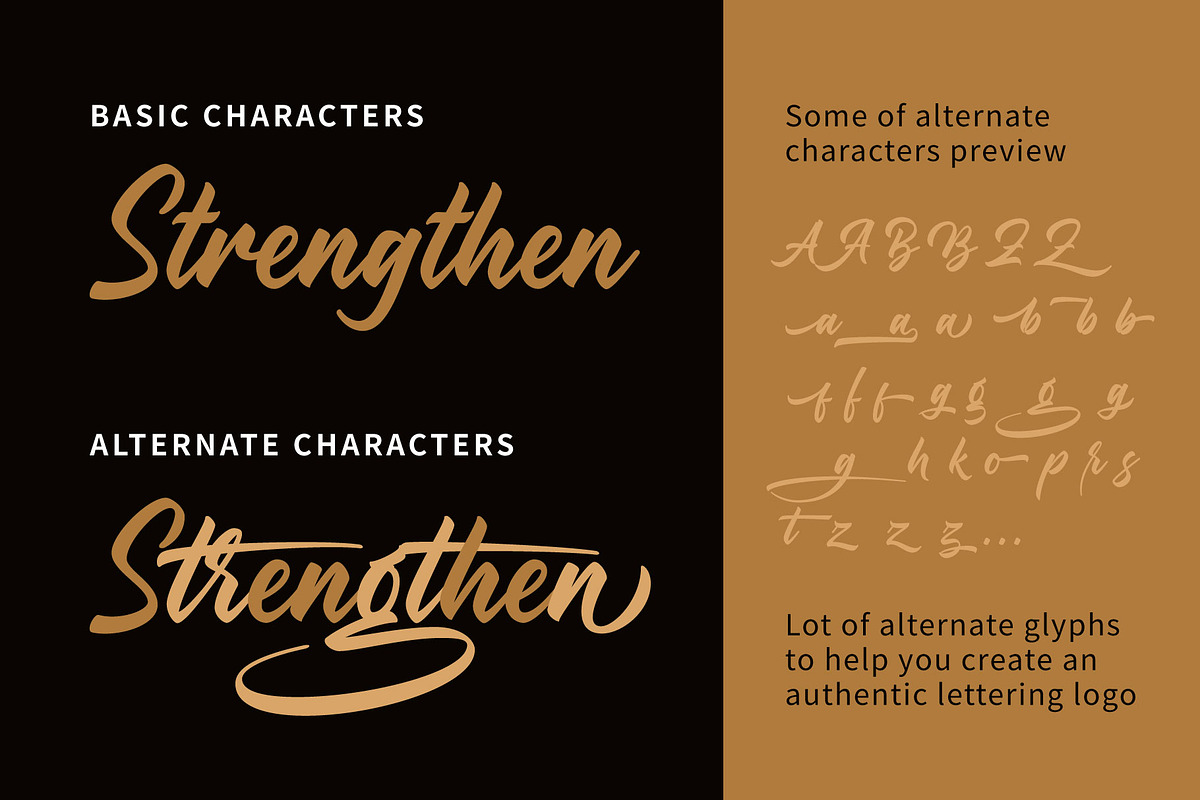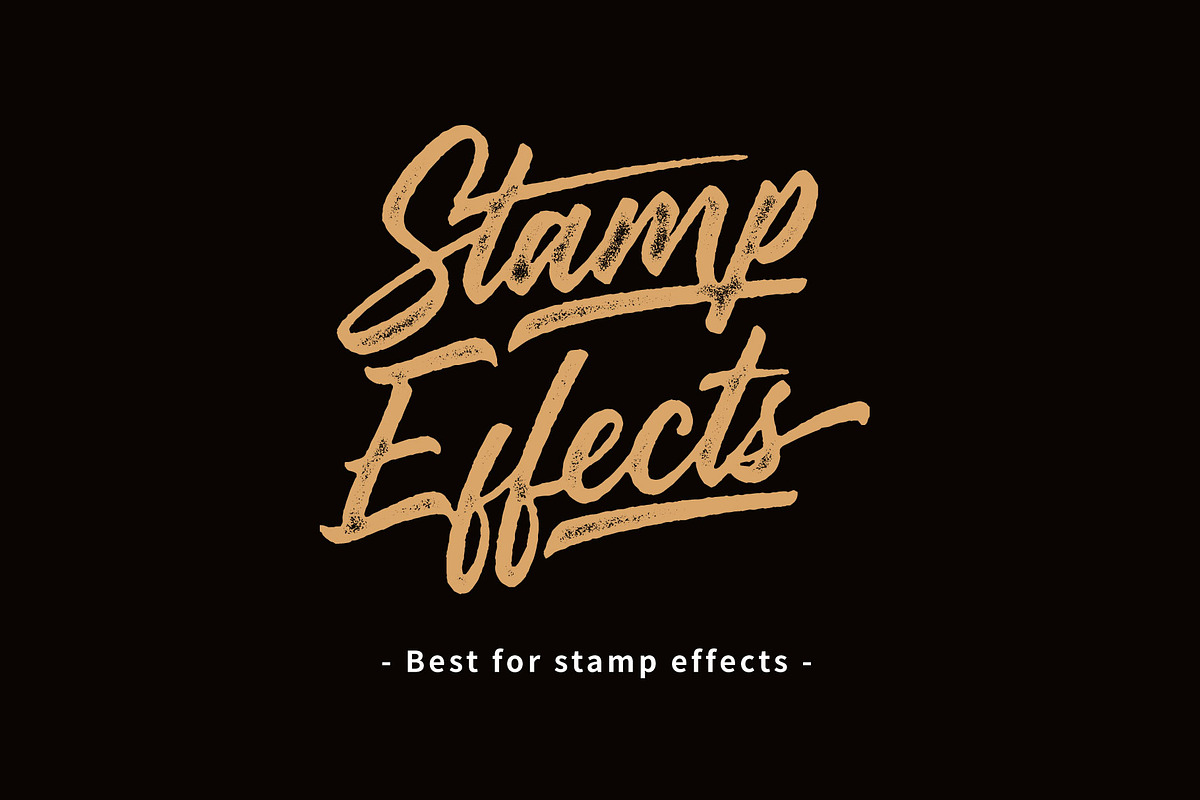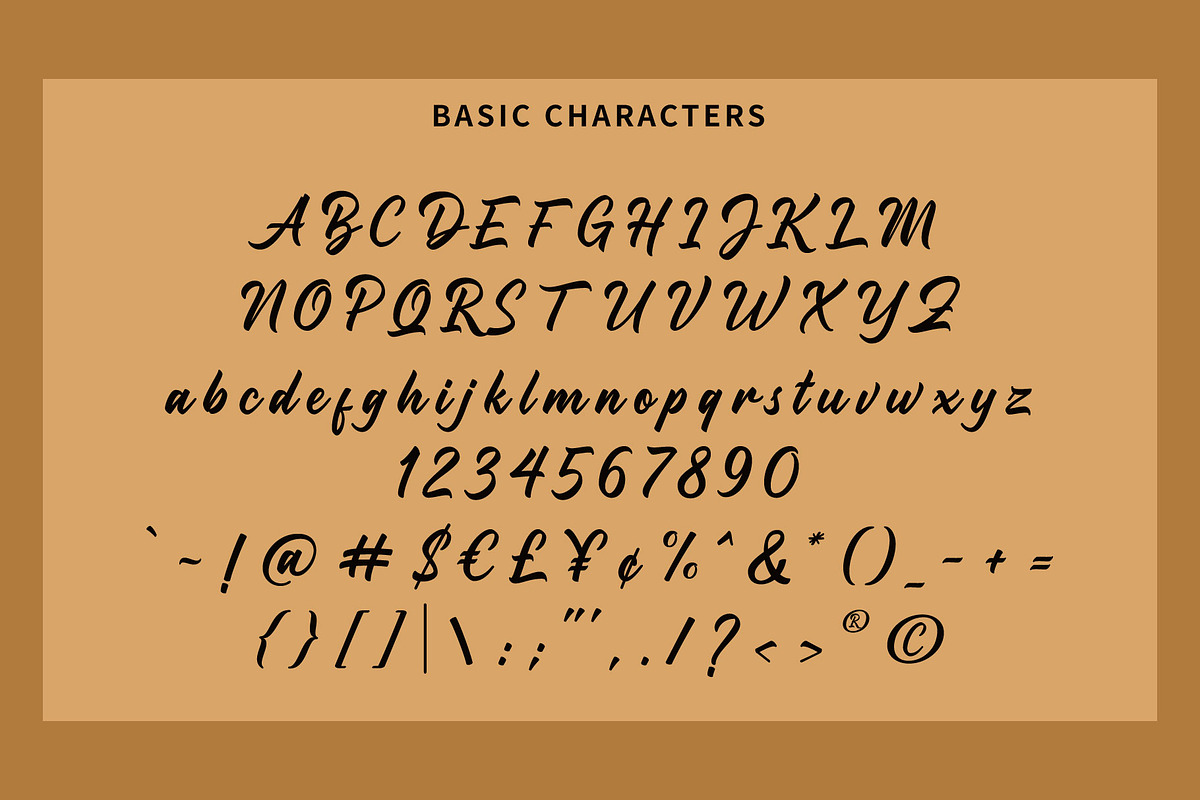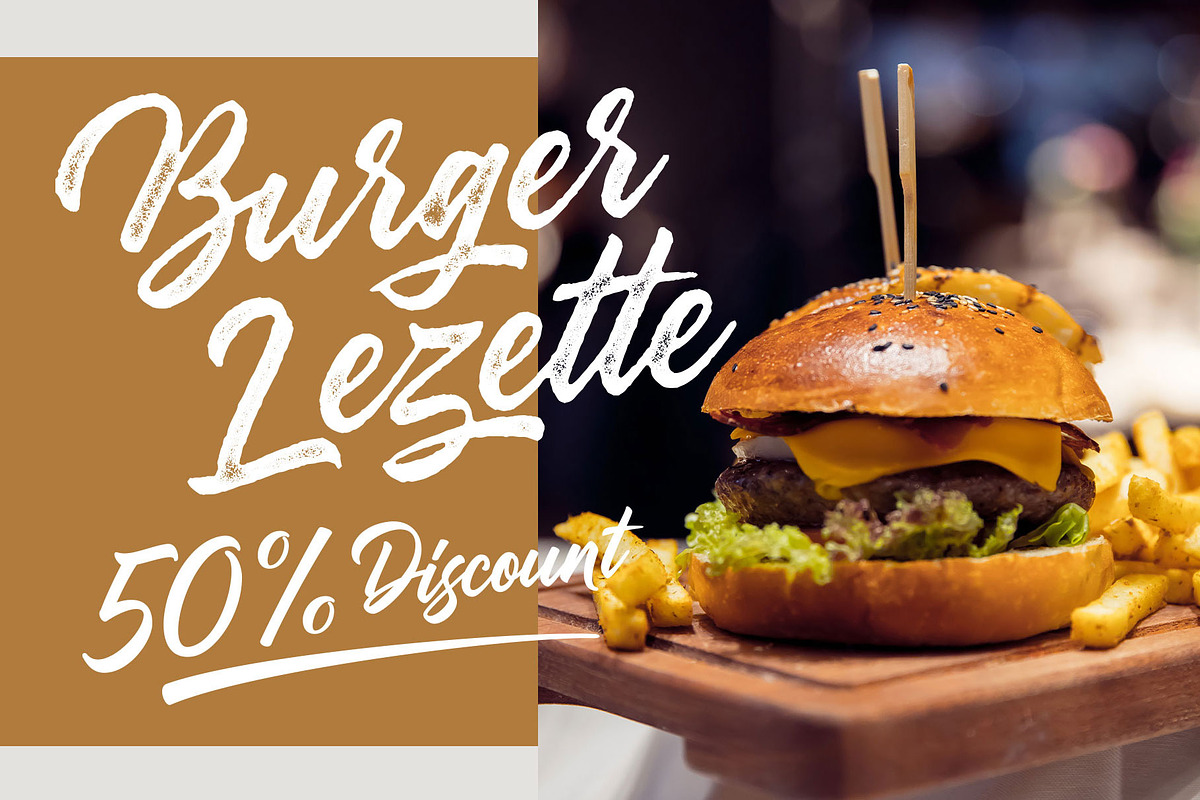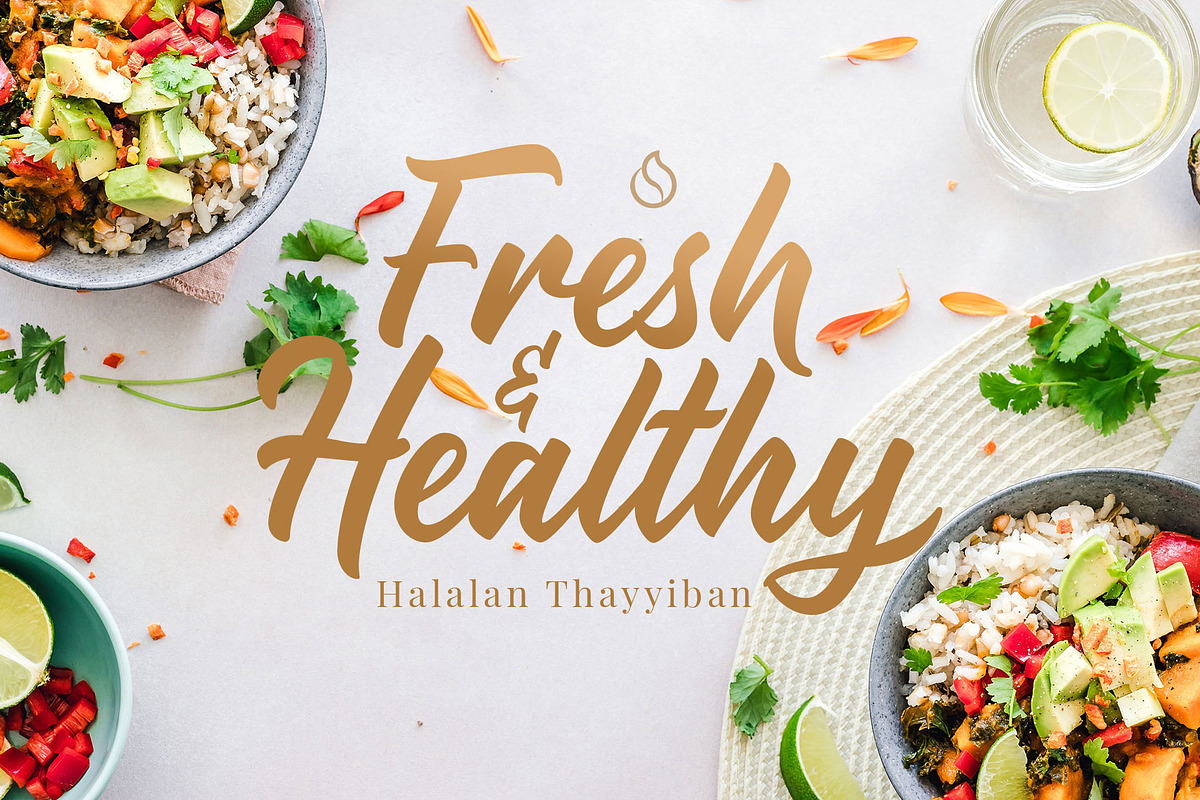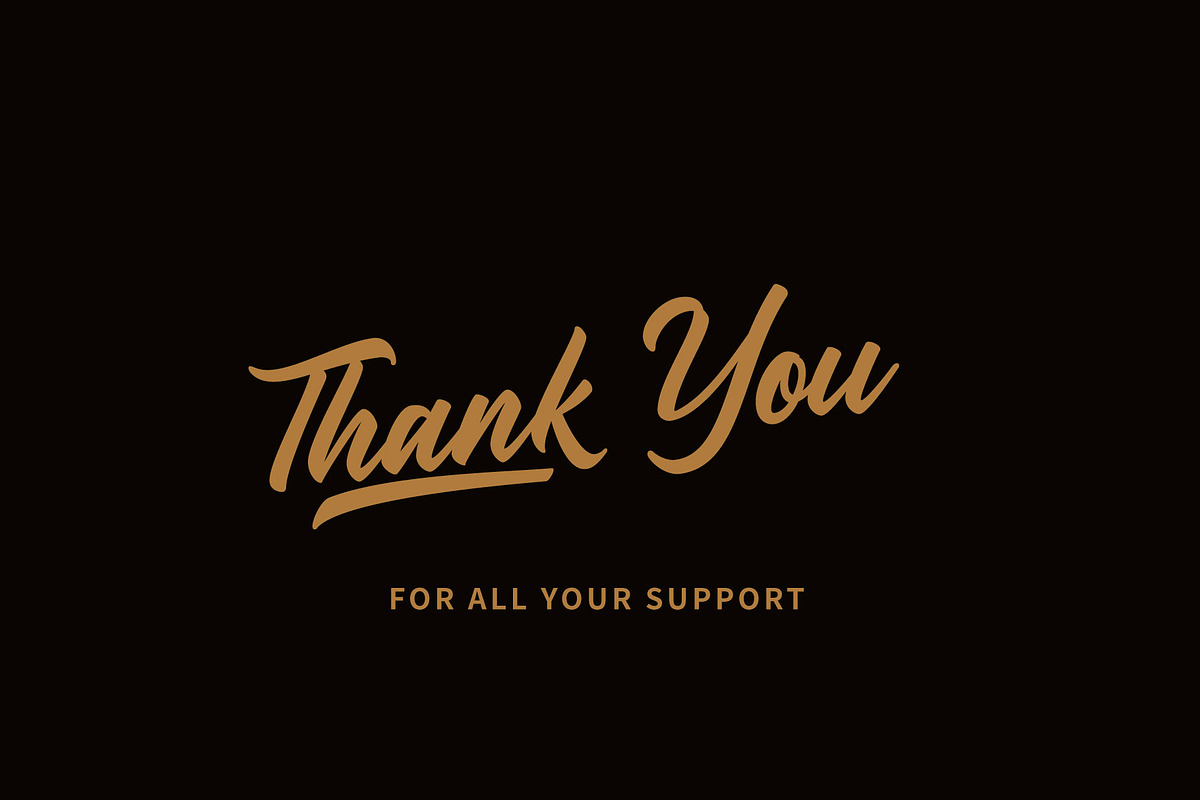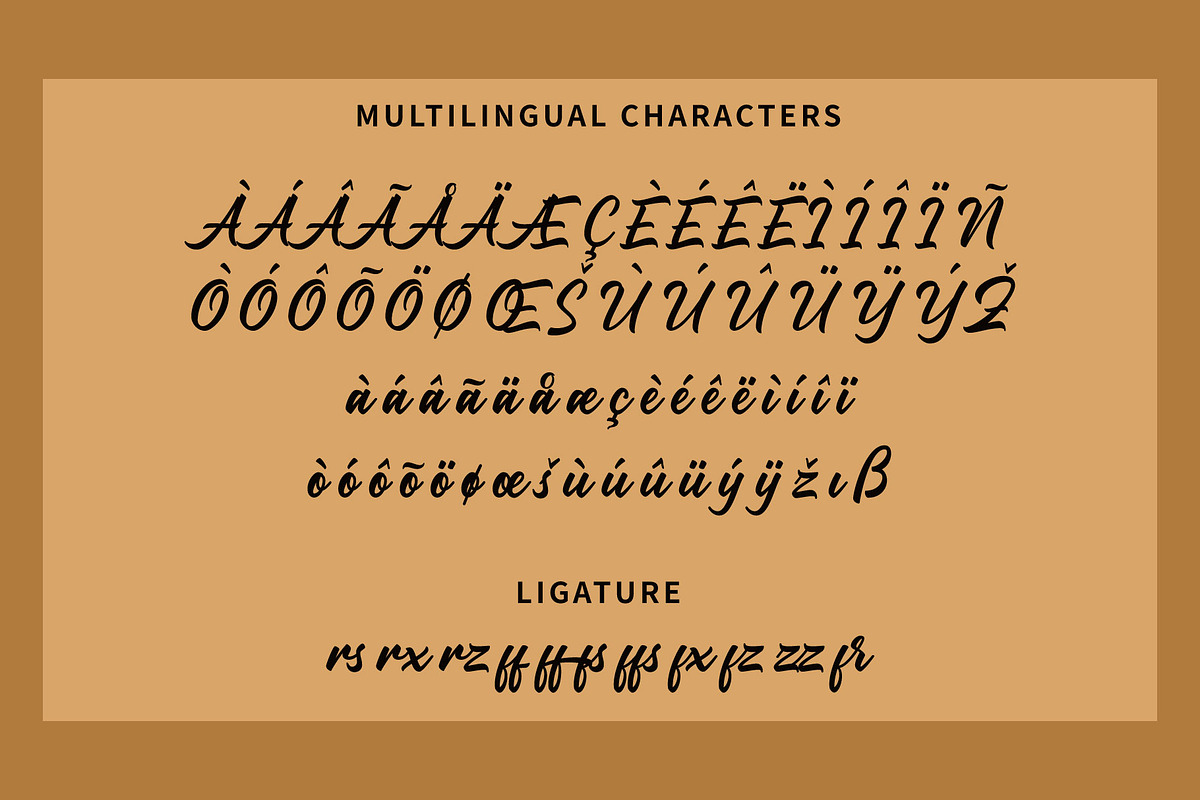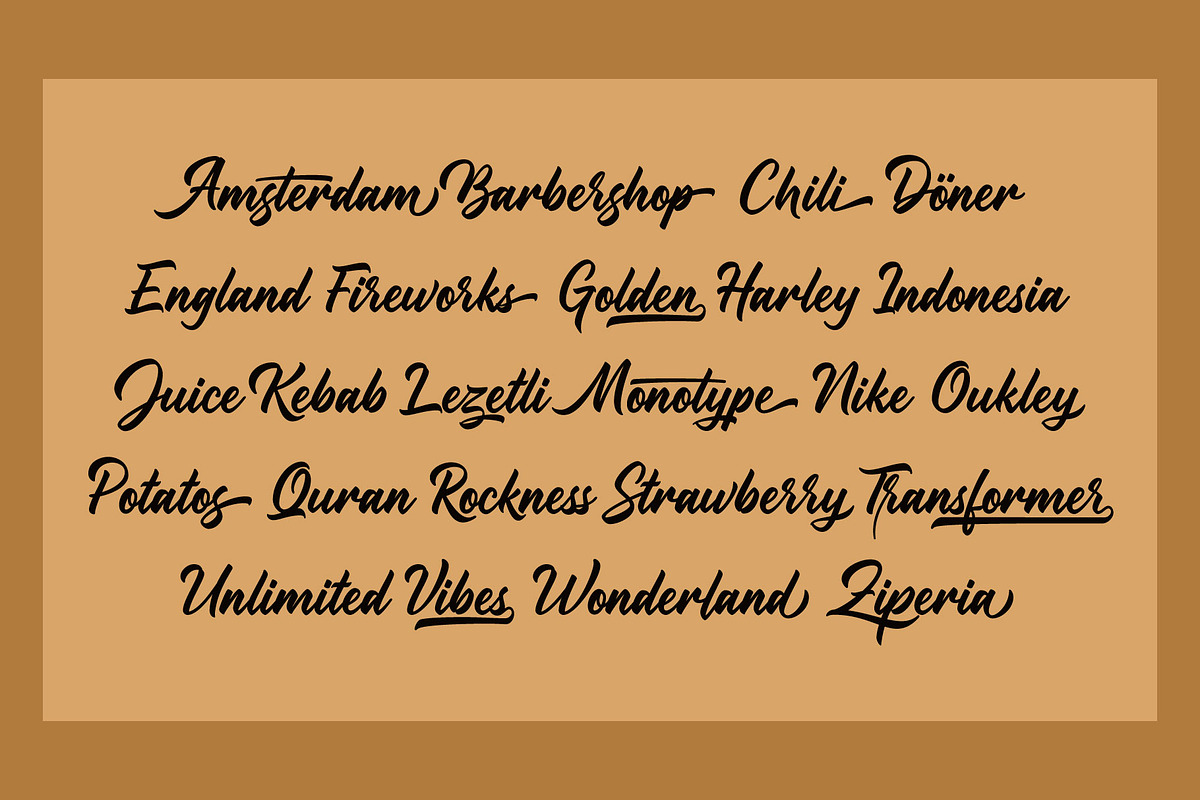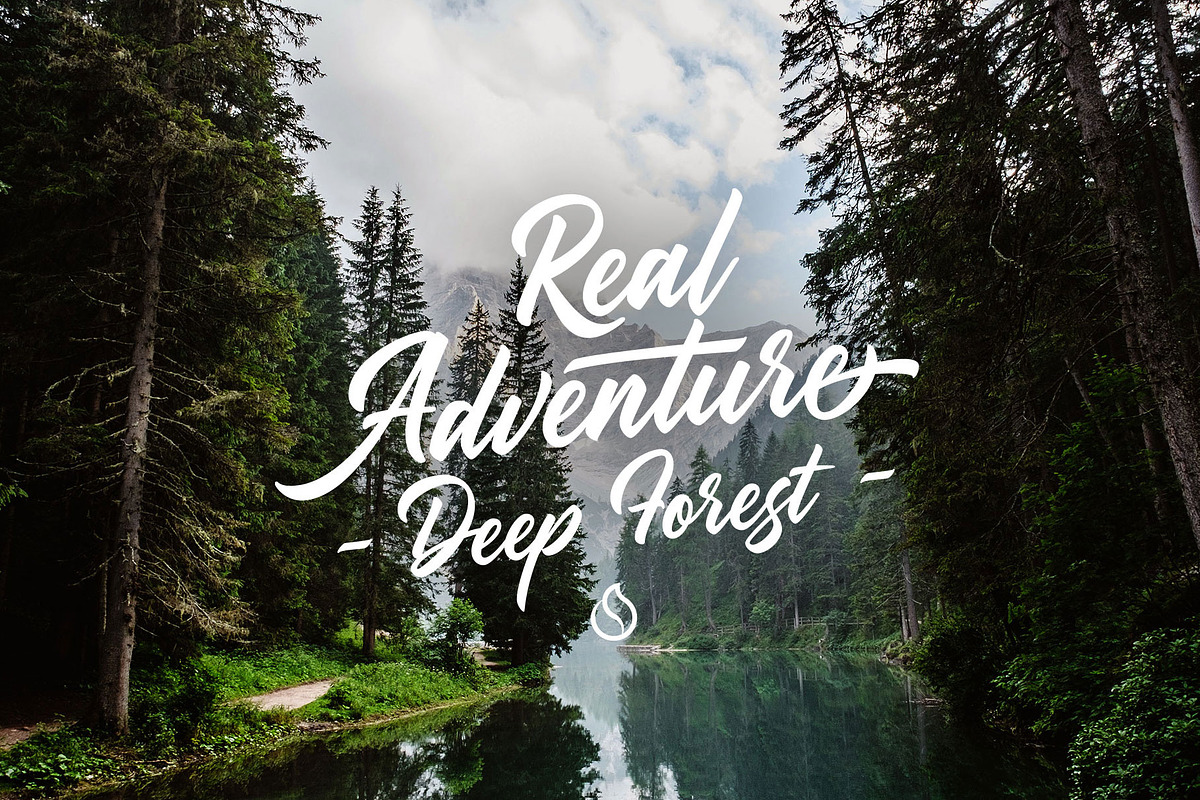
Strengthen Script
Natural Logo Lettering Font with Strengthen Script
Strengthen Script is a logo lettering font that mimics natural handwriting, adding personal charm to your brands.
Turning a hand lettering into a logo adds a special, personal touch. Strengthen Script is a logo lettering font inspired by natural cursives, giving your brand instant charm and visual identity without you having to create it manually. Perfect addition to your visual branding campaign, both offline and online.
Why Using Strengthen Script?
Strengthen Script offers a beautiful, modern script font based on natural handwriting. It adds a special touch to your branding efforts, a personal charm from the hand lettering. The basic and stylized characters have distinctive styles without sacrificing readability.
This hand lettering font is ideal for both logo and tagline. The basic characters have an easy but easily readable style, adding a casual charm to your logo and branding materials. Strengthen includes 241 alternative characters and 443 glyphs to create diverse text-based logos and designs.
With different variations available in one file, Strengthen Script allows you to create diverse text-based designs. You can convey various thematic messages, such as casual, youthful, dynamic, classy, and strong. Use the Glyph Panel to create designs with Illustration, InDesign, or Photoshop for more creative freedom.
Recommended Uses
How can you use this logo lettering font?
Try adding effects like brush or texture to make your logo more attractive. Strengthen Script is versatile and can be used for fashion, food and beverage, and self-care product logos. Depending on your font designs, they look great to promote shoes, clothing lines, sportswear, bistros, food trucks, and grooming tools.
You can also use it for advertising events, such as musical performances, art exhibitions, and movie festivals. Combine Strengthen Script with simpler serif fonts to create attractive digital posters and social media posts. With this font, you can also make merchandise like badges, stickers, hats, t-shirts, tote bags, and mugs.
Using a logo lettering font is a quick way to add a personal touch to your product. Make your marketing effort more attractive and successful with Strengthen Script as the logo.